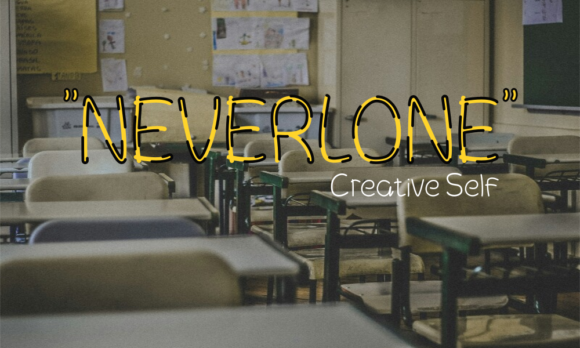
Unleash your creative spirit with Neverlone Font, the captivating script font that will transform your designs into mesmerizing masterpieces. Crafted by the skilled hands of Cocoriscranjy, Neverlone is a heartfelt handwritten font that captures the essence of authentic chalkboard artistry.
Immerse yourself in the world of Neverlone and discover a font that breathes life into your words. Its enchanting strokes evoke the nostalgia of childhood chalkboards, evoking a sense of warmth and familiarity. Whether you seek to create eye-catching channel art or impart wisdom through teaching materials, Neverlone stands ready to elevate your designs.
With Neverlone, the possibilities are boundless. Its malleable nature adapts seamlessly to a myriad of creative endeavors. Embellish your social media posts, craft stunning logos, or design captivating packaging that commands attention. Neverlone's versatility empowers you to express your unique vision with unparalleled elegance.
Experience the transformative power of Neverlone and elevate your designs to new heights. Its enchanting charm will captivate your audience, leaving a lasting impression that resonates deep within their hearts. Embrace the magic of Neverlone and unlock the true potential of your creative expression.